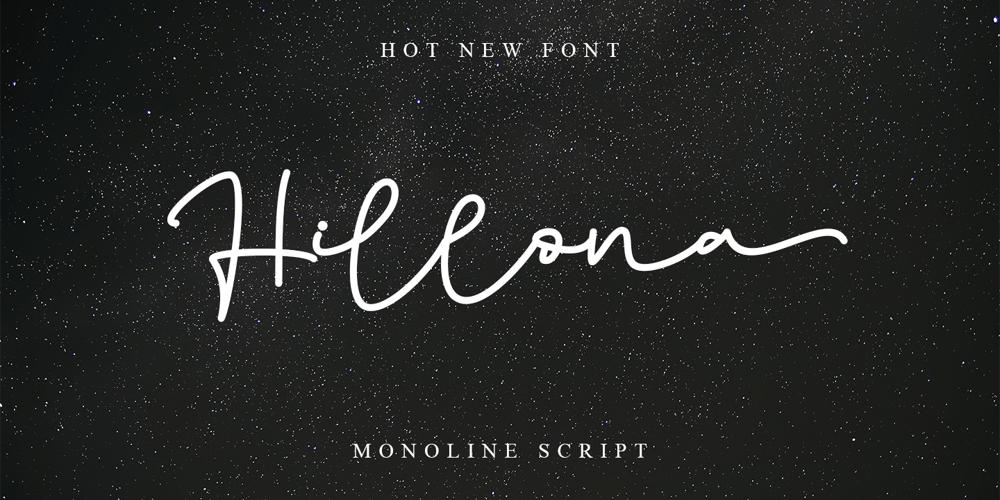
Hillona Font Family was designed by Stefani Tri Rosa Setiati Christiana and published by Stefani Letter. Hillona contains 2 styles and family package options. Hillona is a beautiful monoline script font. It is a beautiful combination of timeless elegance and authentic calligraphy. It features an incredibly classic style, while still keeping a friendly feel. Hillona is the perfect font for making original and outstanding designs. It will also look amazing in branding projects, social media posts, magazines, book covers and more!This font is PUA encoded which means you can access all of the glyphs Alternate and Swashes with ease! It features a varying baseline, gorgeous glyphs, and stunning alternates.